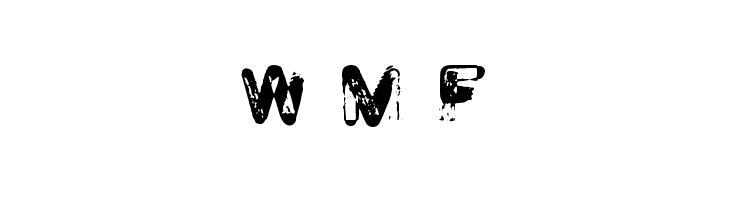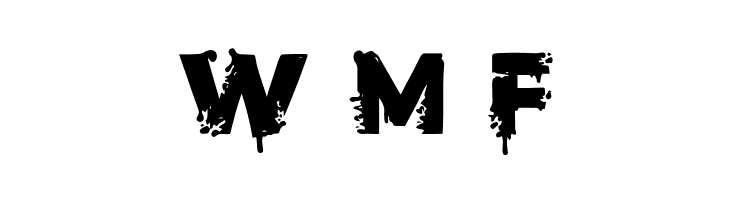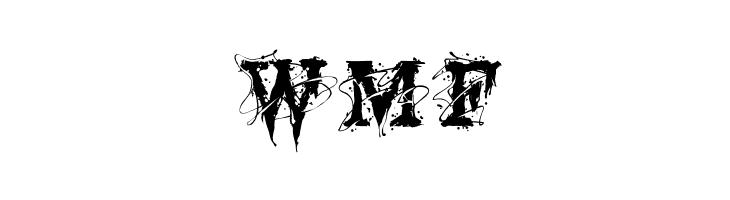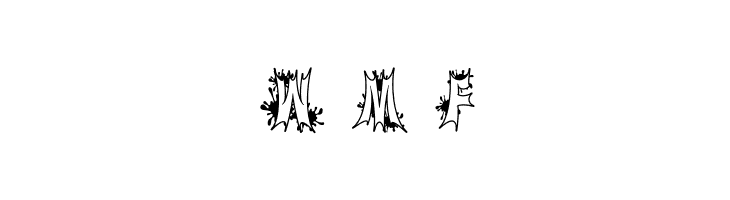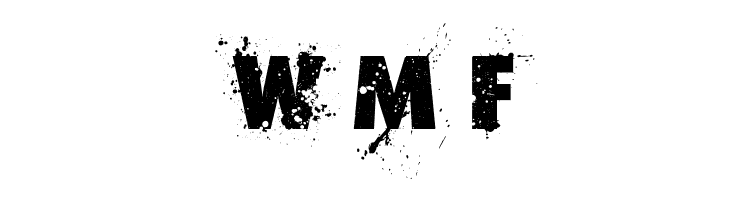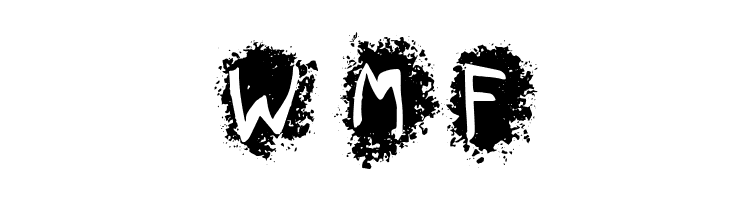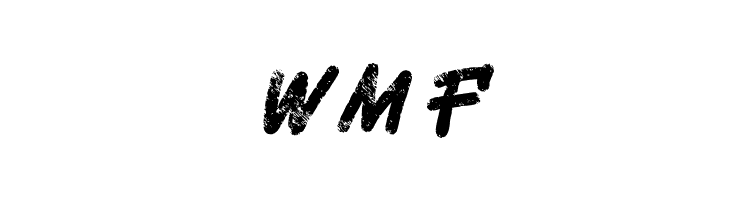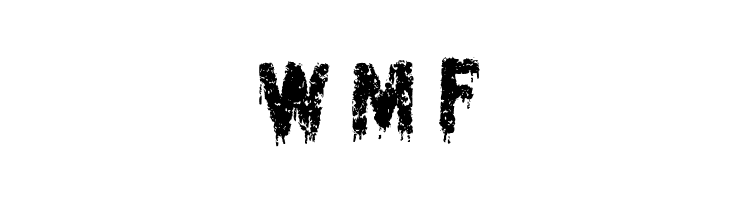
A bold, distressed font with a grungy, urban aesthetic.
Playful decorative dingbat font with hand-drawn symbols and borders.
A bold, distressed font with a horror-themed, dripping effect.
A bold, grungy font with a spooky, distressed texture.
A bold, graffiti-inspired font with intricate, chaotic detailing.
A bold, graffiti-inspired font with sharp, jagged edges and dynamic forms.
A bold, distressed font with a grunge texture and urban style.
A bold, grunge-style font with a distressed, artistic texture.
A bold, textured font with a brush stroke appearance and dynamic slant.
A bold, distressed font with a dripping ink effect, perfect for grunge or horror themes.